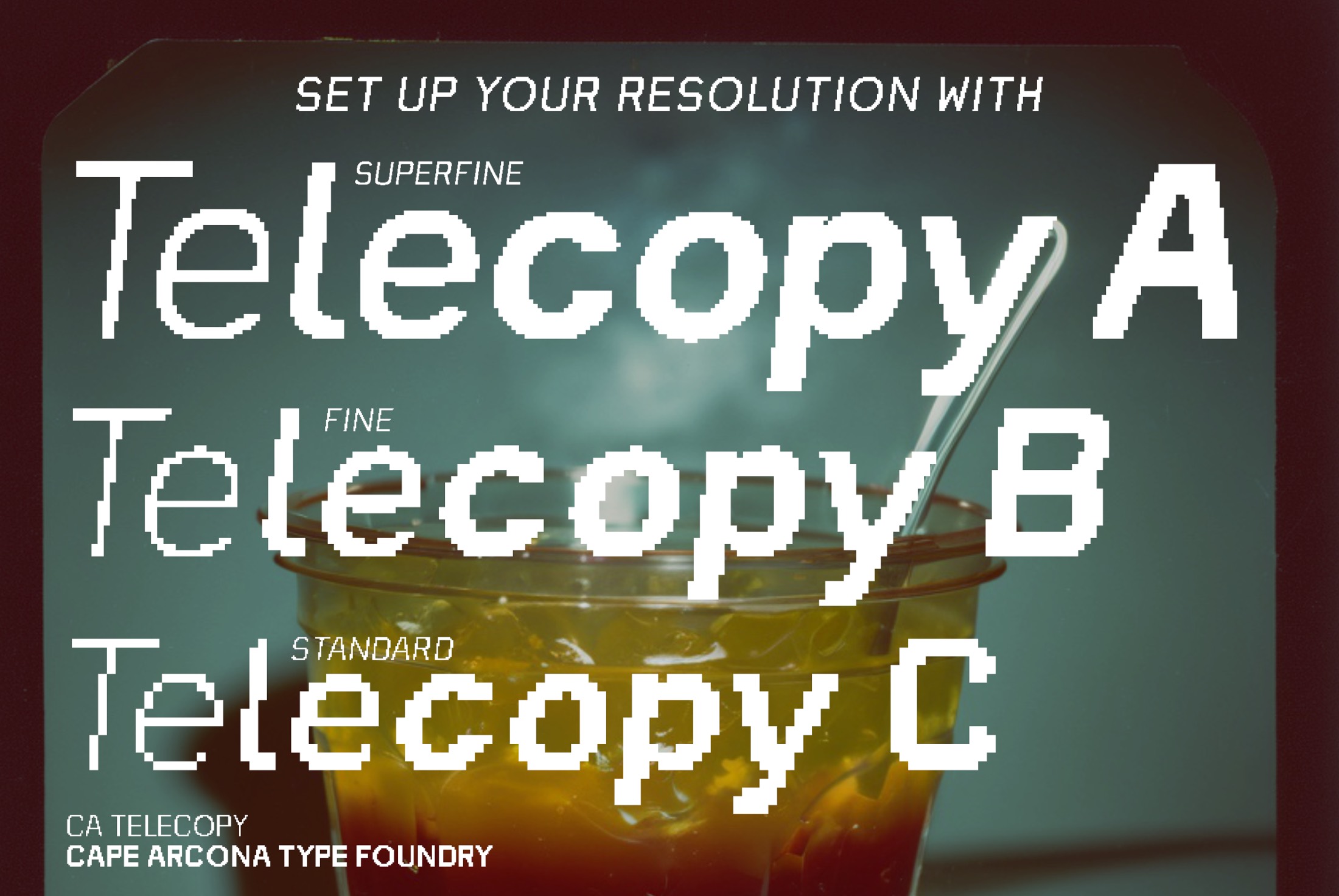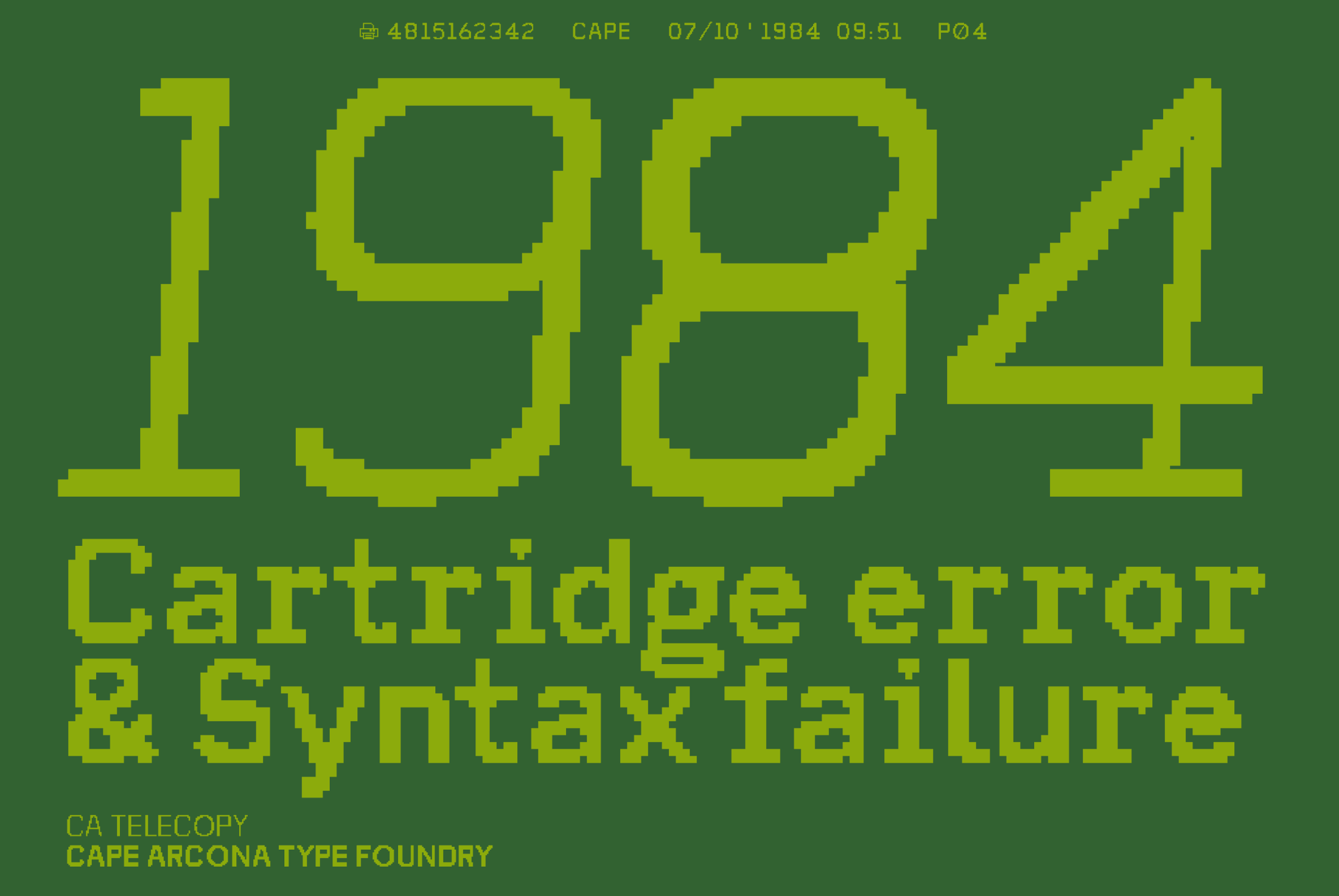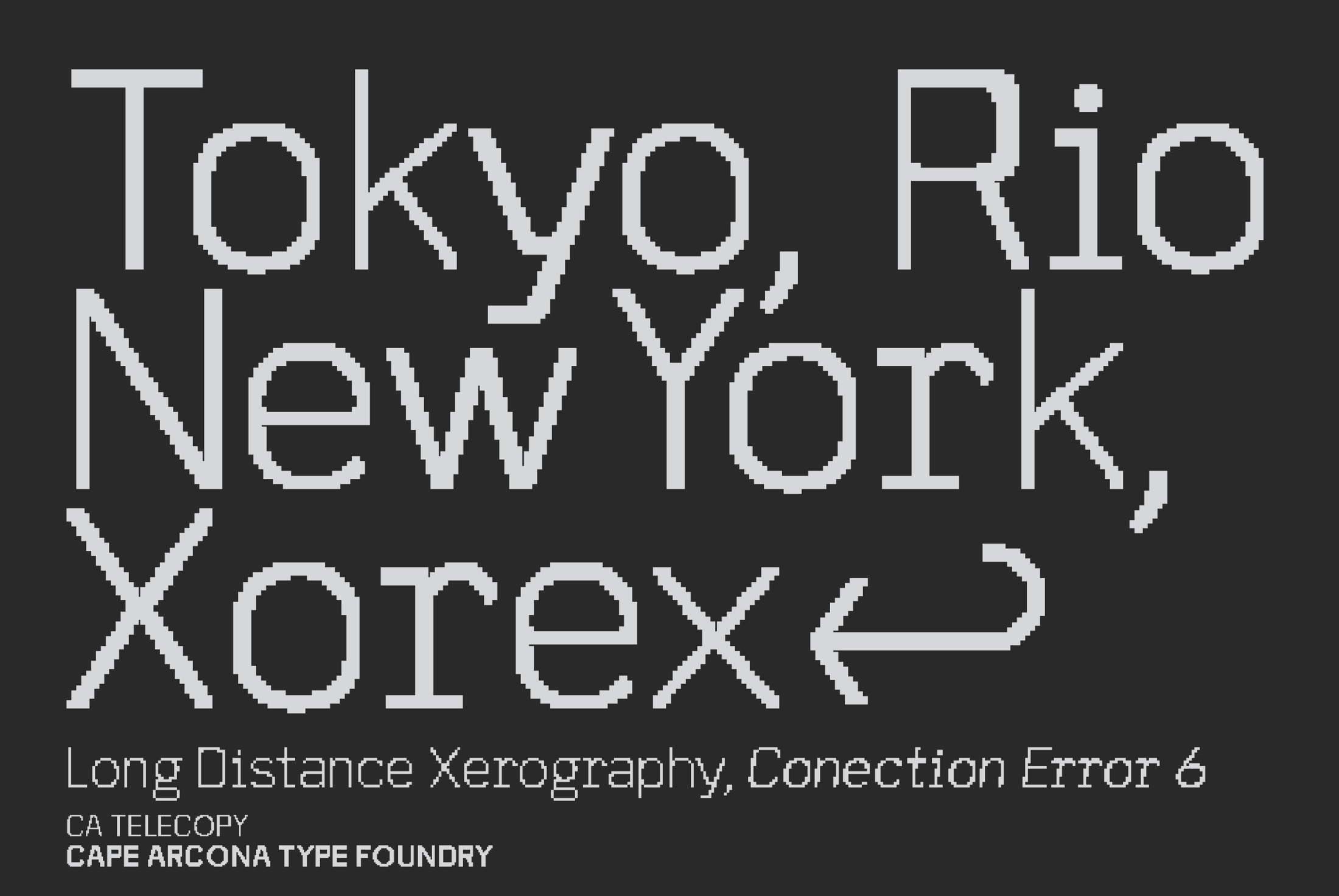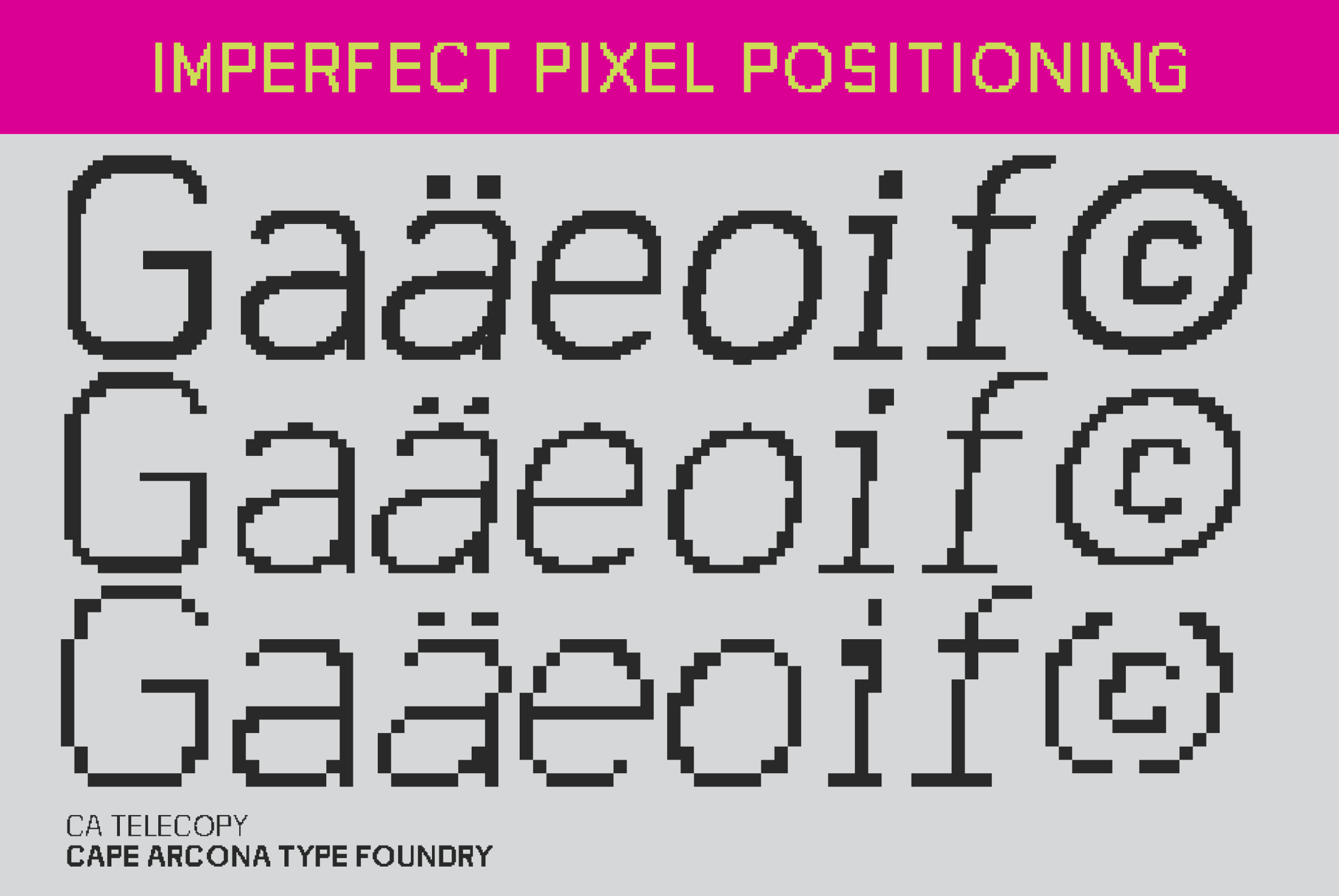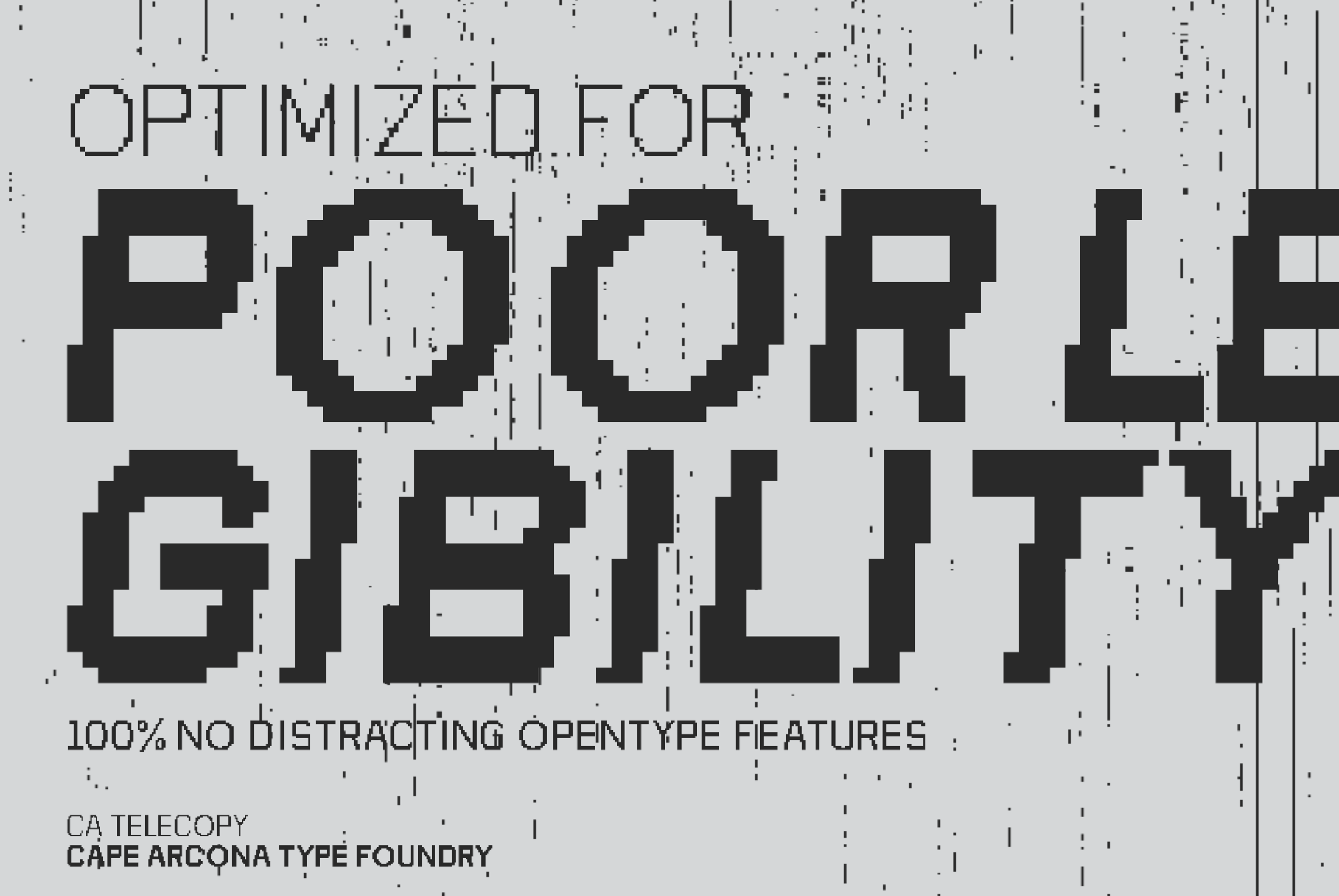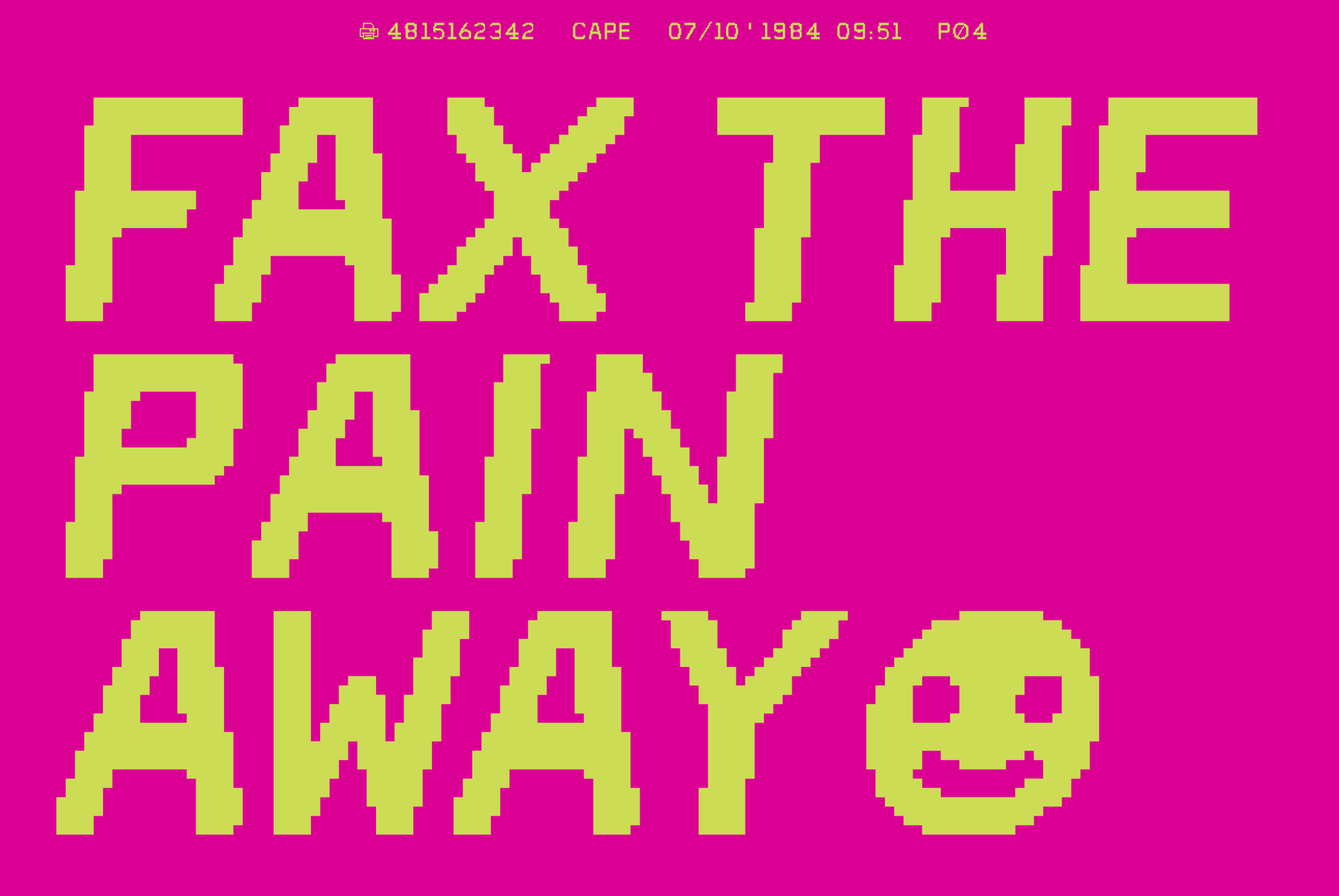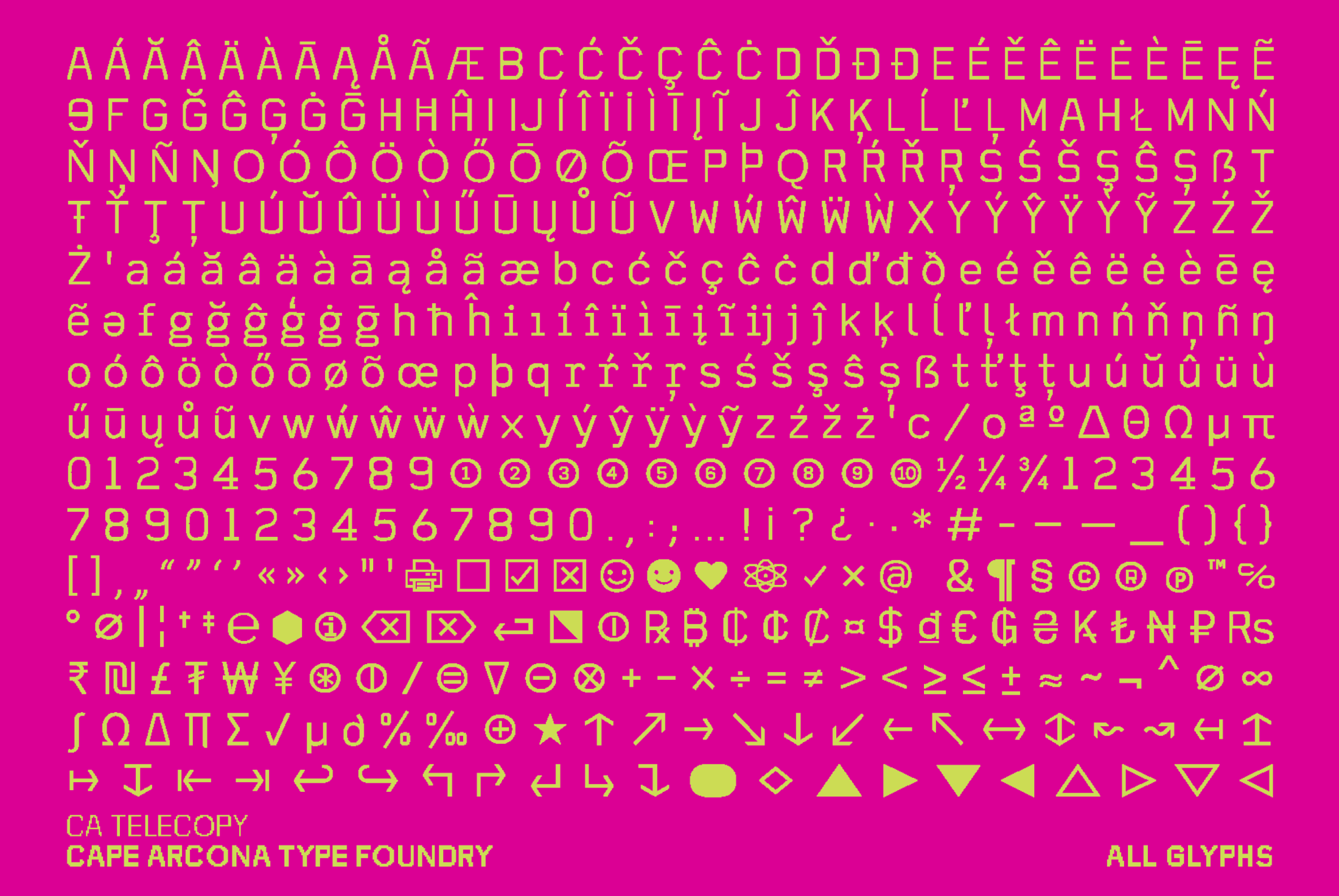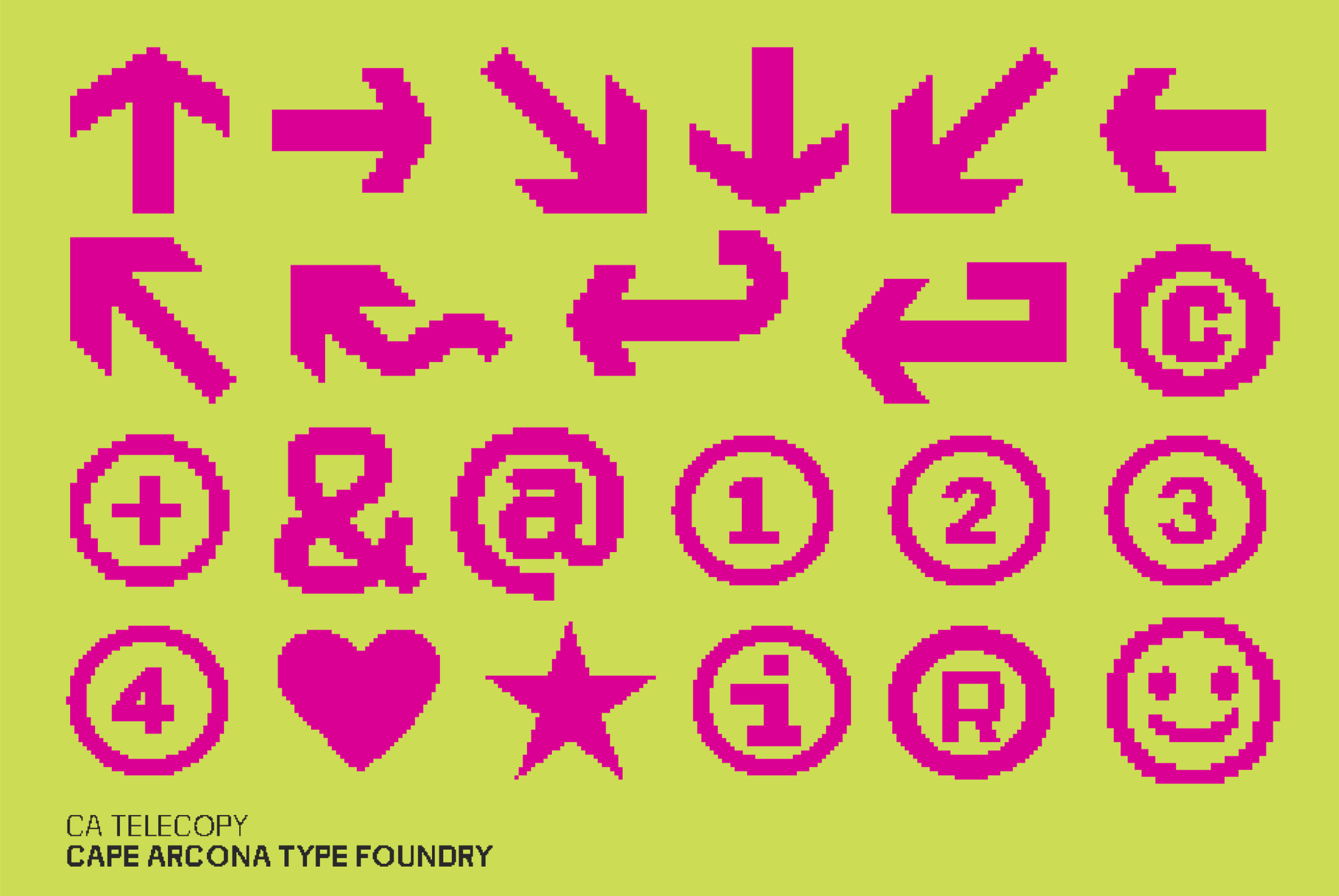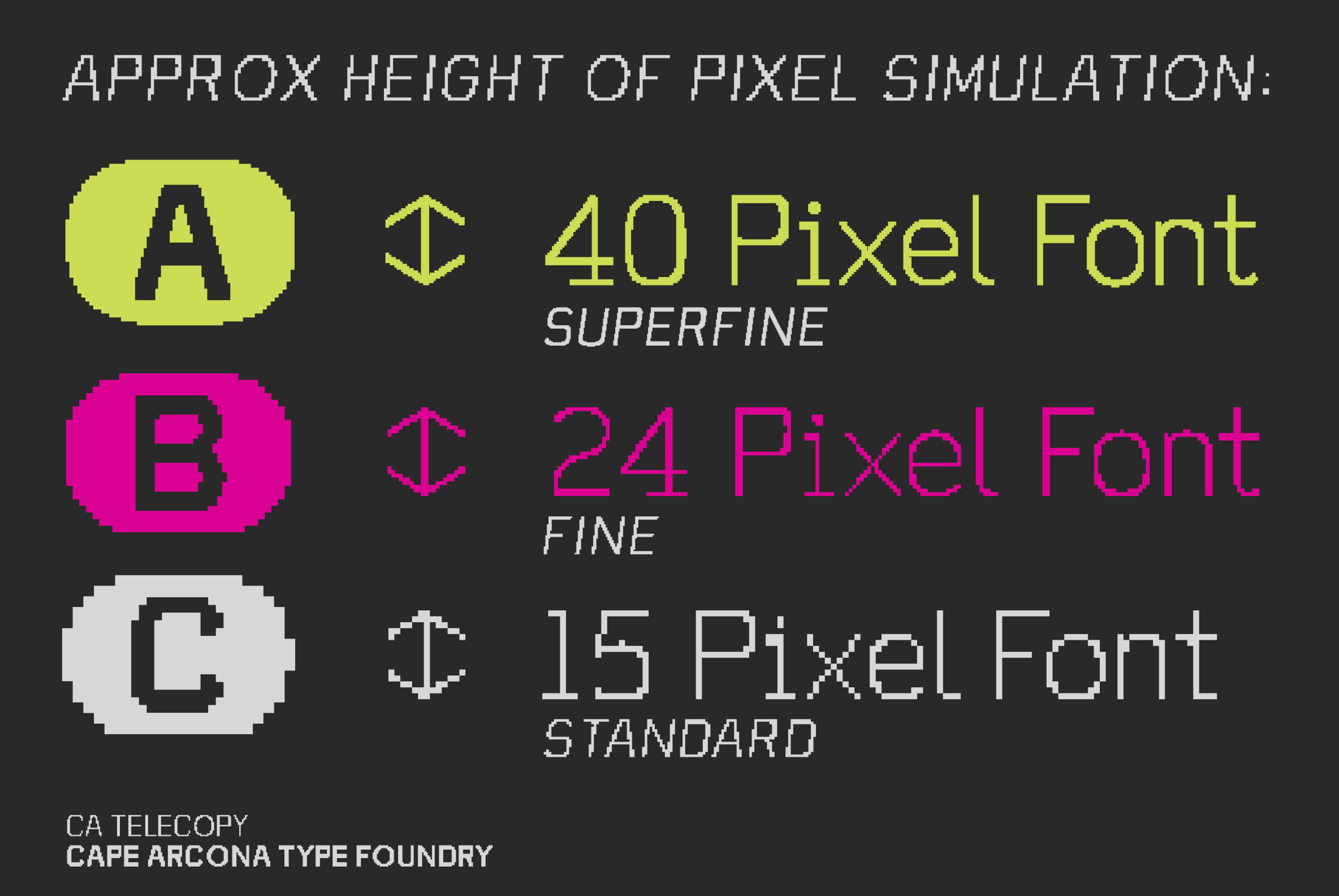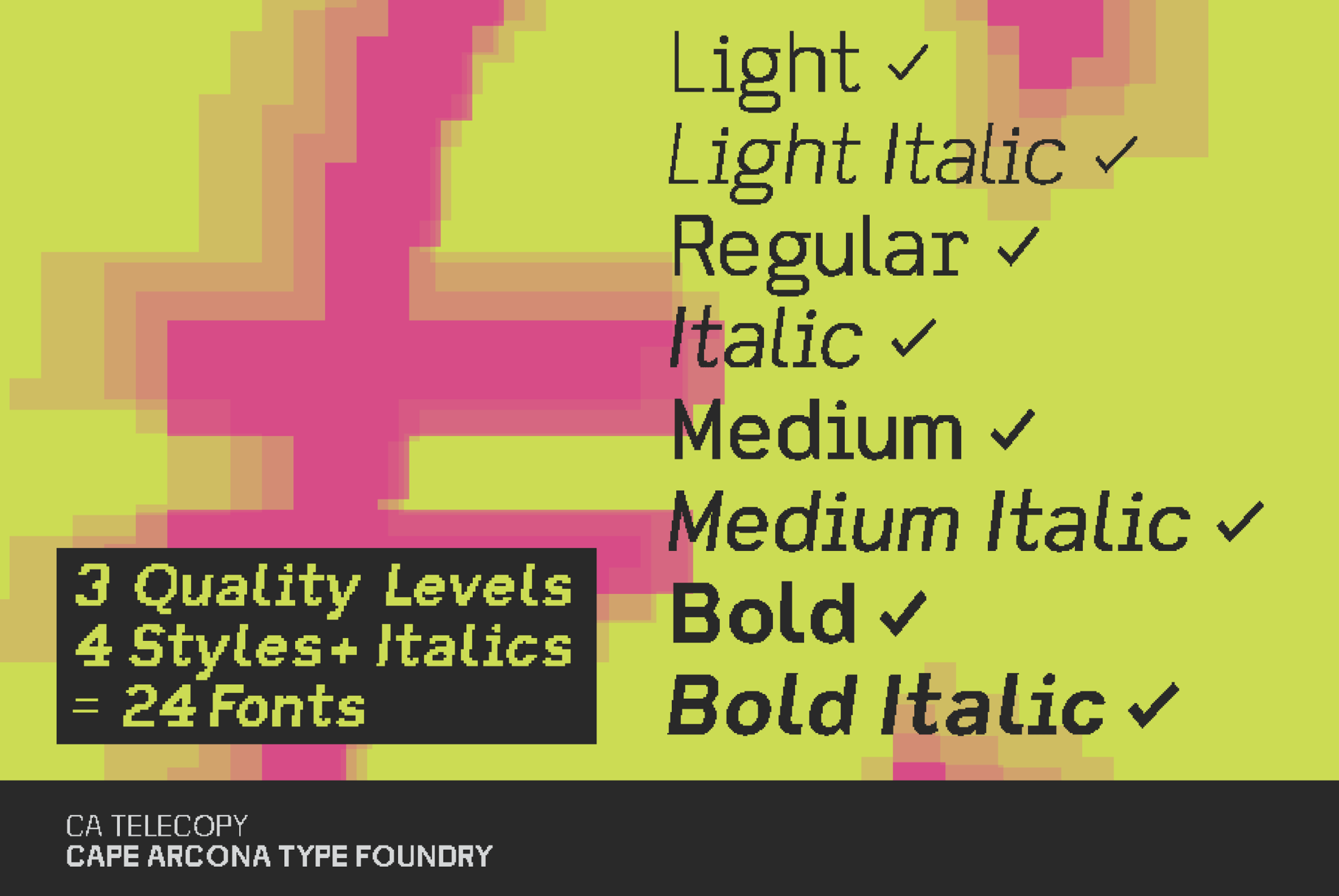
CA Telecopy
Introducing CA Telecopy: The Glitch font family
Forget flawless fonts, CA Telecopy celebrates the glorious imperfections of the early 90s! Remember the chunky pixels and gloriously distorted characters that spewed out of fax machines and low-resolution monitors? CA Telecopy captures that retro charm, glitches and all.
We've flipped the script on “bad hints” and unclean type and turned it into a statement piece. This typeface isn't afraid to be “wrong,” it revels in the digital mistakes that defined the era. Imagine text on a vintage CRT monitor, where imperfections became a unique aesthetic.
CA Telecopy’s pixelated style injects a dose of early Internet nostalgia. Each character is a nod to the golden age of glitch art, where visual anomalies and artifacts were celebrated for their raw visual impact. The design process? We meticulously crafted the “wrong” and the “flawed” to create a typeface that embraces its digital quirks.
Need versatility? CA Telecopy delivers. It comes in light, regular, medium, and bold weights with three different levels of bad pixels. Plus, its expansive character set is ready for any design challenge, whether you're working in print or on the web.
Three different quality levels give you simulated pixel heights of 40, 24 and 15 — Telecopy A, B and C.
CA Telecopy is the perfect tool for adding a touch of nostalgic digital chaos to your designs.  Let your projects revel in intentional degradation and rediscover the beauty of imperfection. With every pixelated edge and glitch, CA Telecopy tells a story of the early 90s, a time when the digital revolution was just beginning.
Designed by:
Thomas Schostok